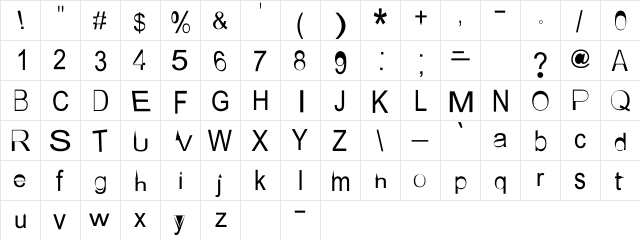
AEZ not your mom's ariel font Font Preview
Design Context for AEZ not your mom's ariel font Typeface
AEZ not your mom's ariel font is a composed and adaptable typeface that performs quietly and consistently across a wide range of design contexts.